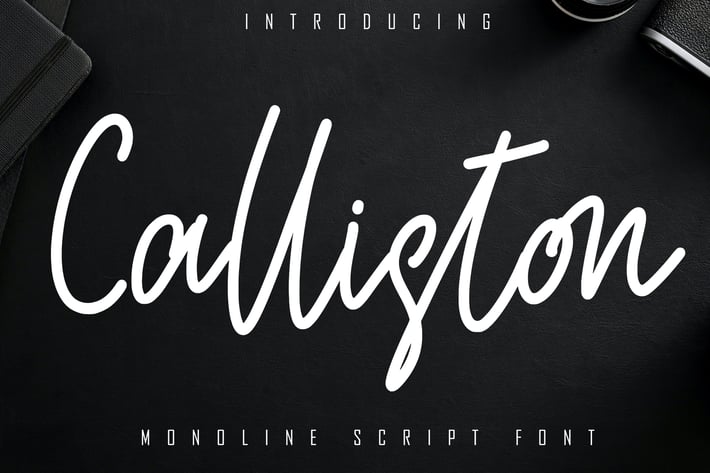
Calliston Monoline Script Font
Calliston is a monoline type font combined with a script so it looks elegant, there are ligature features in it, suitable to support a variety of designs and your business
Ligature\
Basic Latin Language Support (AÀÁÂÃÄÅCÇDÐEÈÉÊËIÌÍÎÏÑOØÒÓÔÕÖUÙÜÚÛWYÝŸÆß )